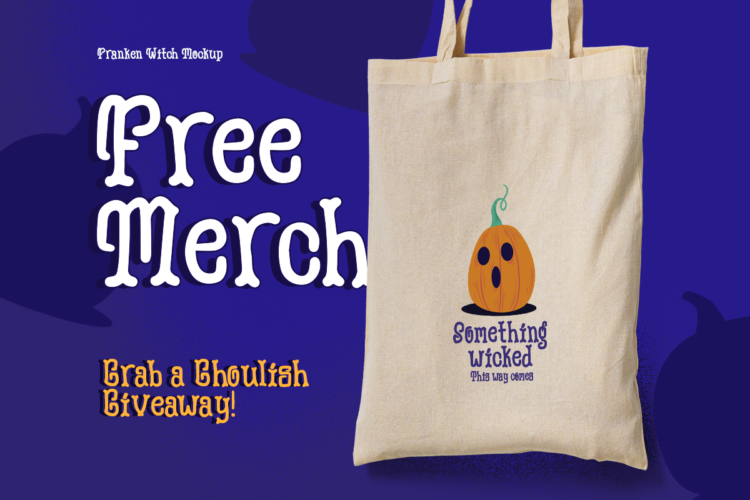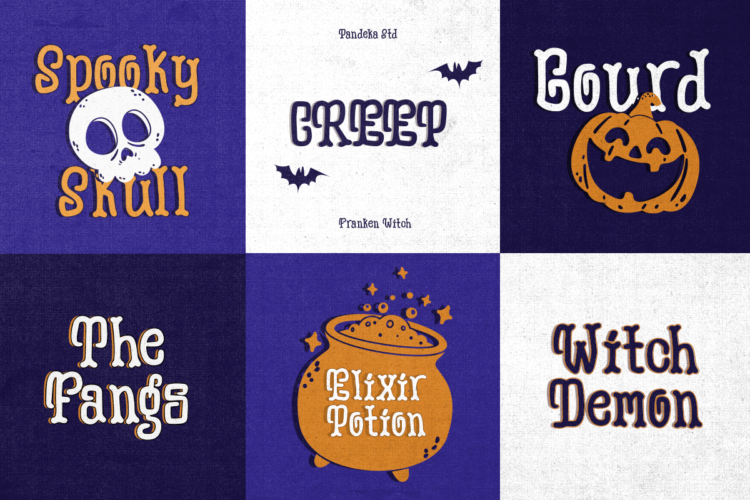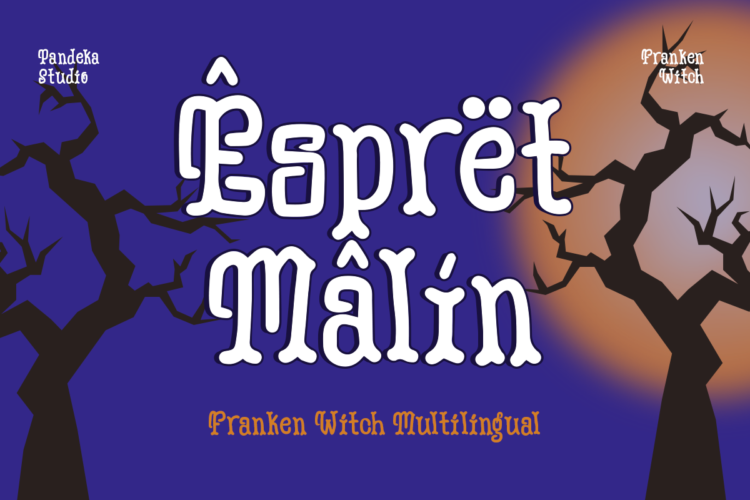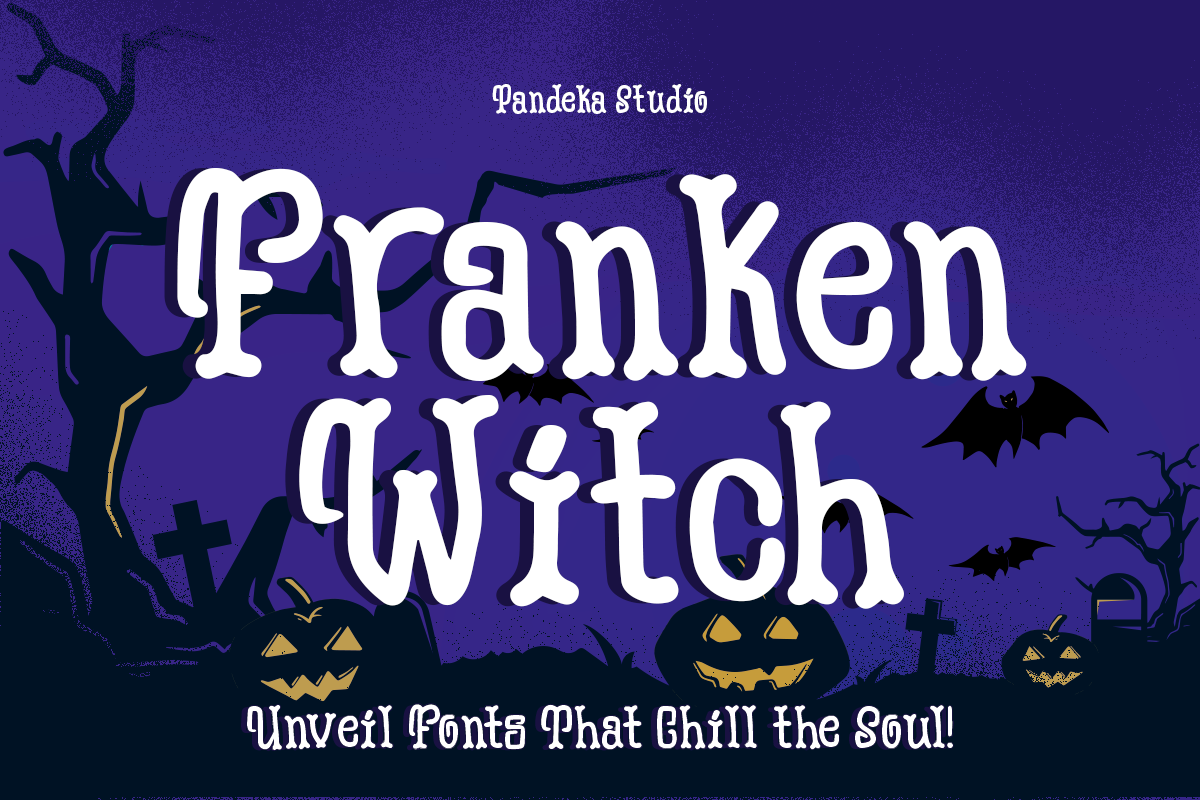
Franken Witch Regular
Franken Witch Outline
Franken Witch font is crafted to bring a spooky and eerie atmosphere to your horror-themed designs. With its rough texture and chilling look, Franken Witch is perfect for adding a creepy vibe to your projects, whether they’re for Halloween or other supernatural occasions. Let this font add a haunting touch to your design and craft work.
• 2 style : Regular and Outline
• Unique letterforms
Franken Witch – Halloween Fun Font